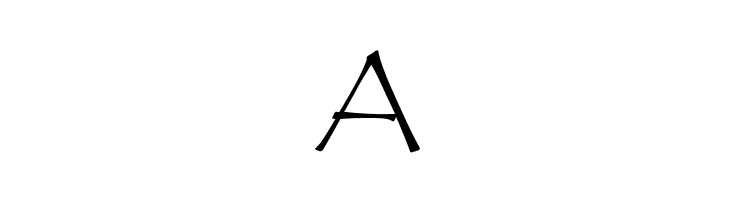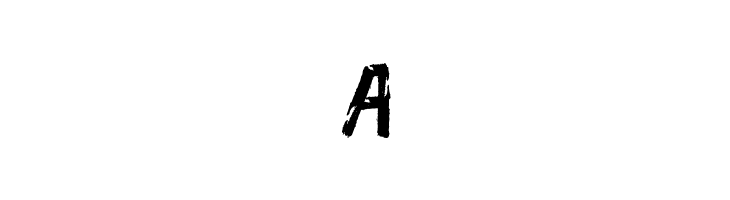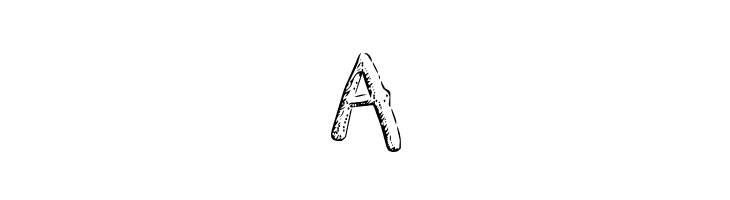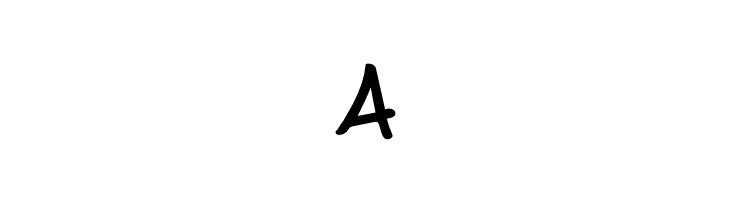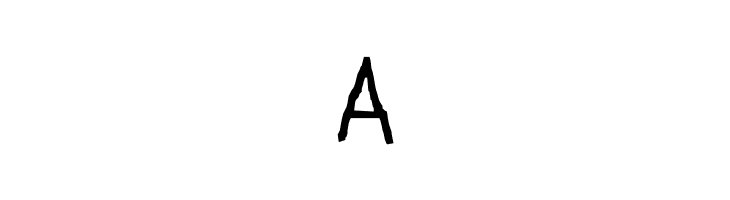
A lively and dynamic handwritten font with fluid, cursive strokes.
A bold, geometric font with a modern and structured design.
A bold, geometric outline font with a modern, tech-inspired style.
A bold, brush-style script font with dynamic and expressive strokes.
A bold, outlined font with a modern, geometric style.
A casual, elegant script font with smooth, connected letters and moderate stroke thickness.
A bold, dynamic brush script font with expressive strokes and a hand-painted look.
A playful, hand-drawn font with rounded, slightly irregular characters.
A playful, bold, hand-drawn font with a lively and informal style.
A playful, bold font with blocky, hand-drawn characters.
A playful, bold font with a hand-drawn feel and unique taxi-themed elements.
A playful, handwritten font with rounded, smooth letterforms and a cheerful aesthetic.
A playful and energetic script font with smooth, flowing lines and rounded edges.
A bold, distressed font with a rugged, vintage appearance.
A casual and elegant handwritten font with smooth, flowing strokes.
A hand-drawn font with an organic, textured appearance and uneven strokes.
A bold, distressed font with a grunge aesthetic.
A playful, tech-inspired font with bold, rounded lines and geometric structure.
A playful, handwritten font with bold, rounded characters and dynamic embellishments.
A bold, playful font with a hand-drawn, artistic style.
A playful, bold font with rounded edges and smooth curves.
A playful, hand-drawn font with a whimsical and friendly style.
A bold, distressed font with a hand-drawn, rugged appearance.
A playful, handwritten font with rounded, consistent strokes and a casual feel.
A playful, hand-drawn font with festive elements and a modern twist.
A playful handwritten font with smooth curves and a casual, friendly style.
A playful handwritten font with smooth, flowing curves and a friendly appearance.
A bold, hand-painted style font with dynamic, uneven strokes.
A playful, bold font with rounded, bubbly characters.